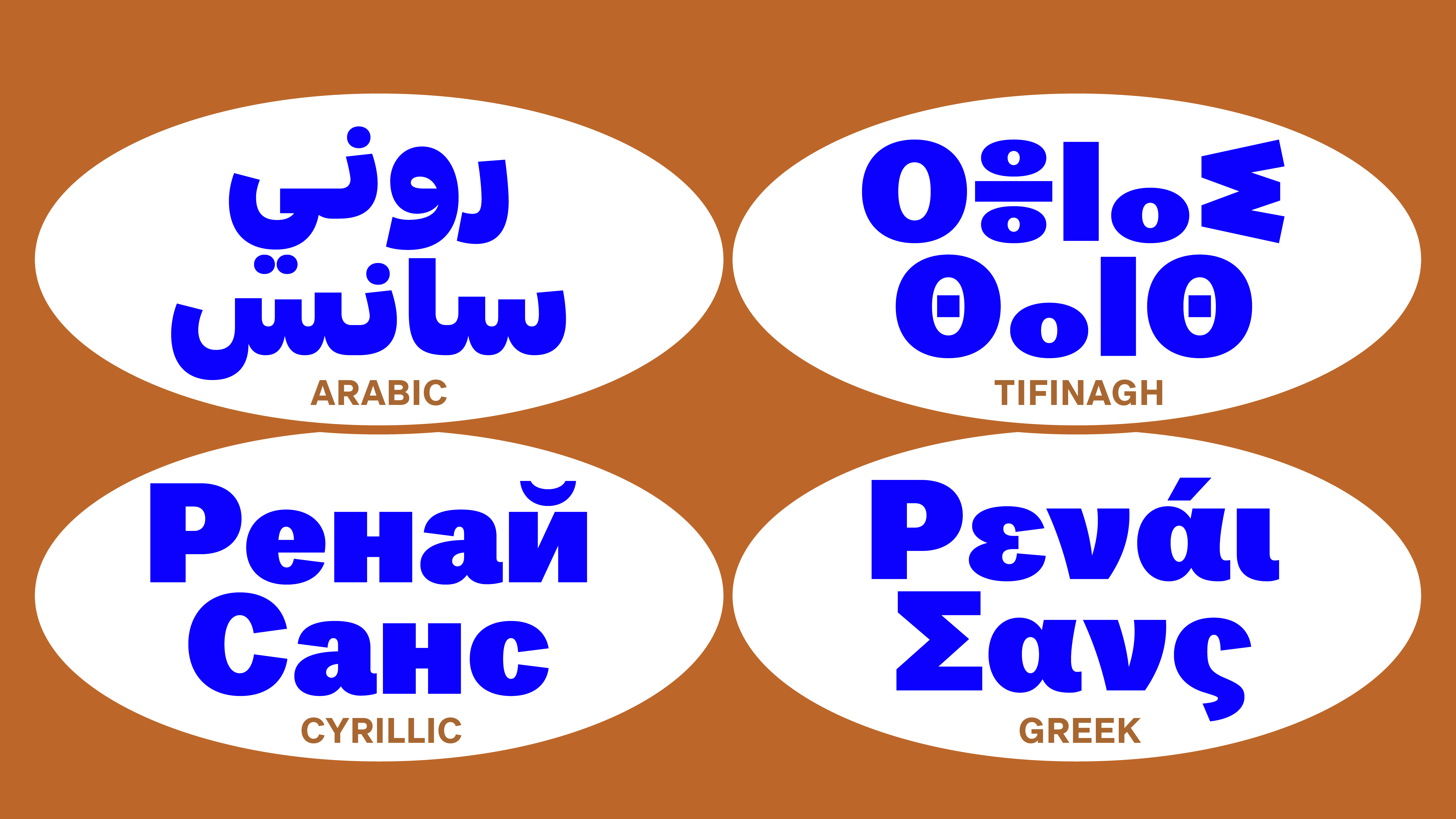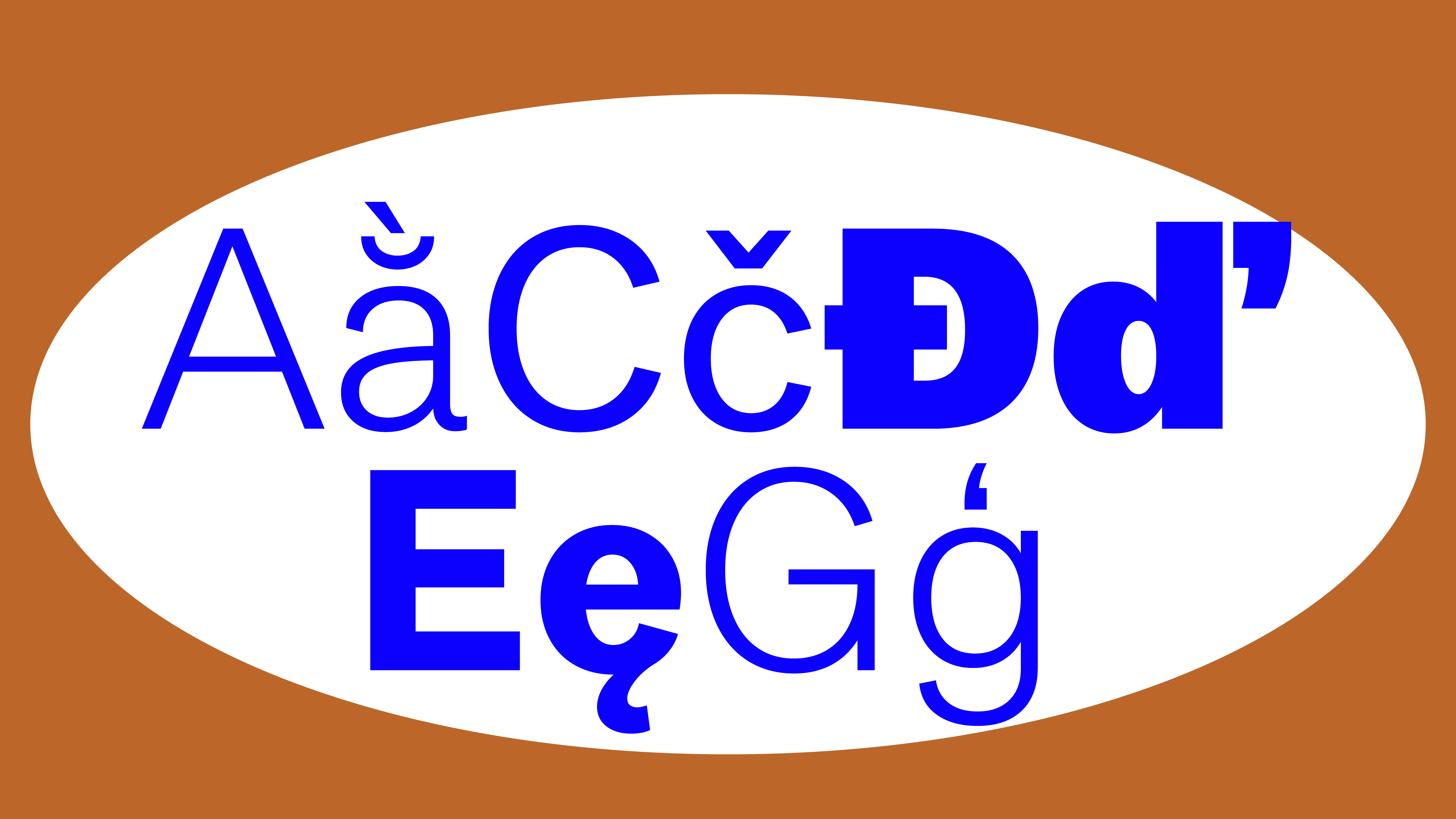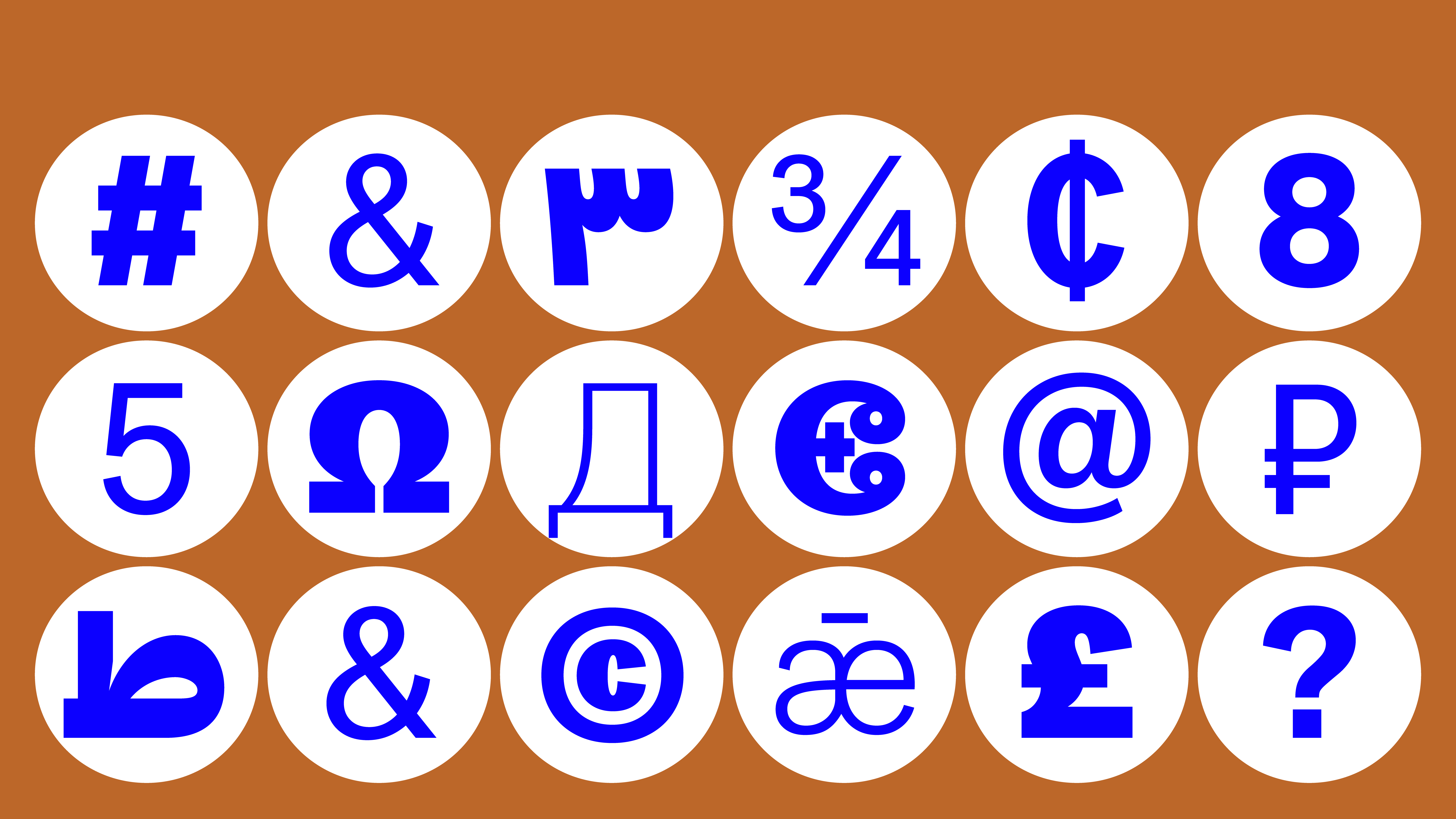
Renai Sans
Renai Sans – Simple. Balanced. Universal. A clean and versatile sans serif designed for clarity across languages and contexts. With 8 weights and support for Latin, Arabic, Tifinagh, Greek, and Cyrillic, it adapts seamlessly to everything from urban signage and branding to digital interfaces. Renai Sans is built for fast reading, even at small sizes or on screens: a trusted choice for those who seek timeless functionality with global scope.
Designers: Brahim Boucheikha, Gia Tran, Jean-Baptiste Pernette